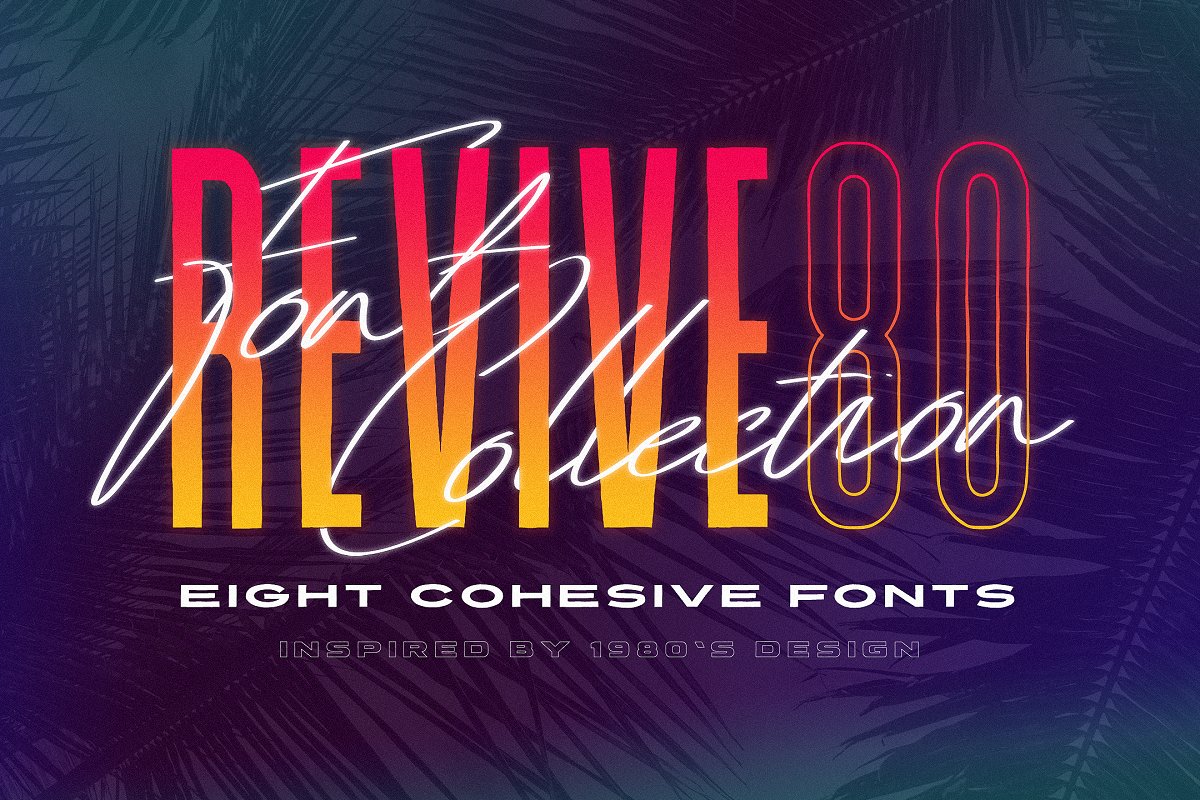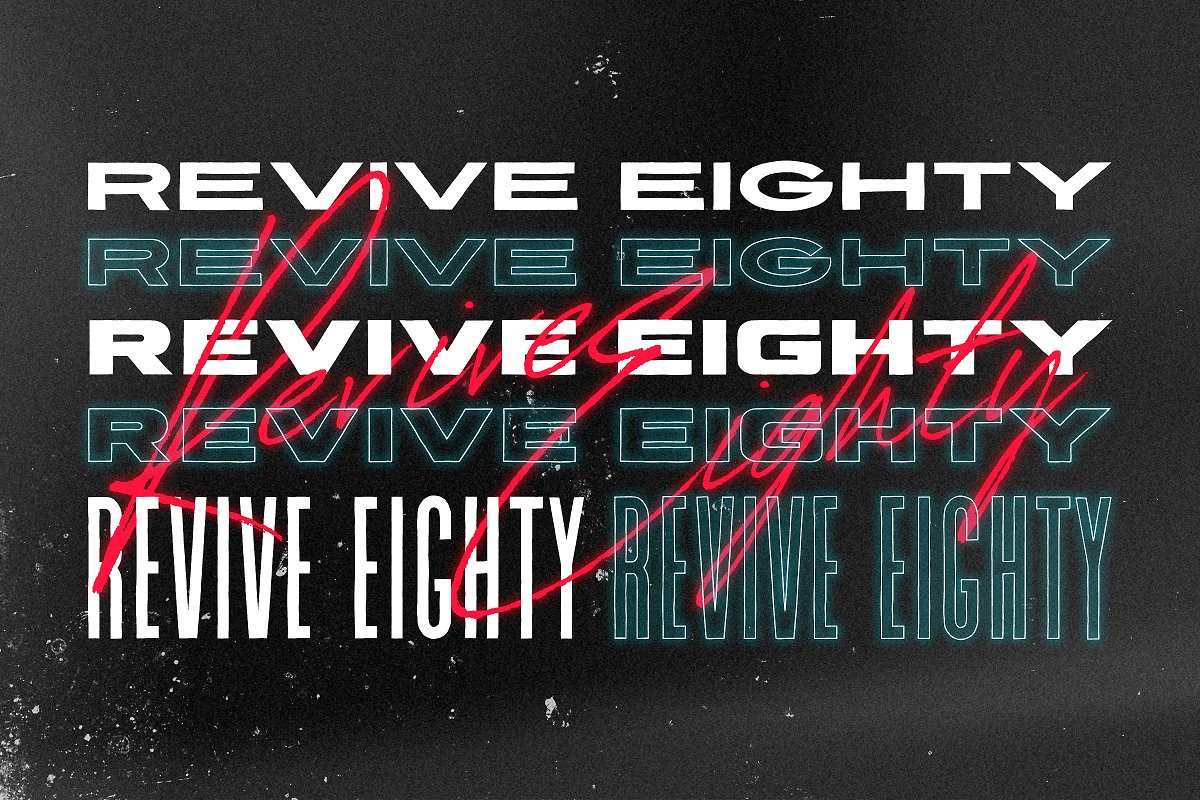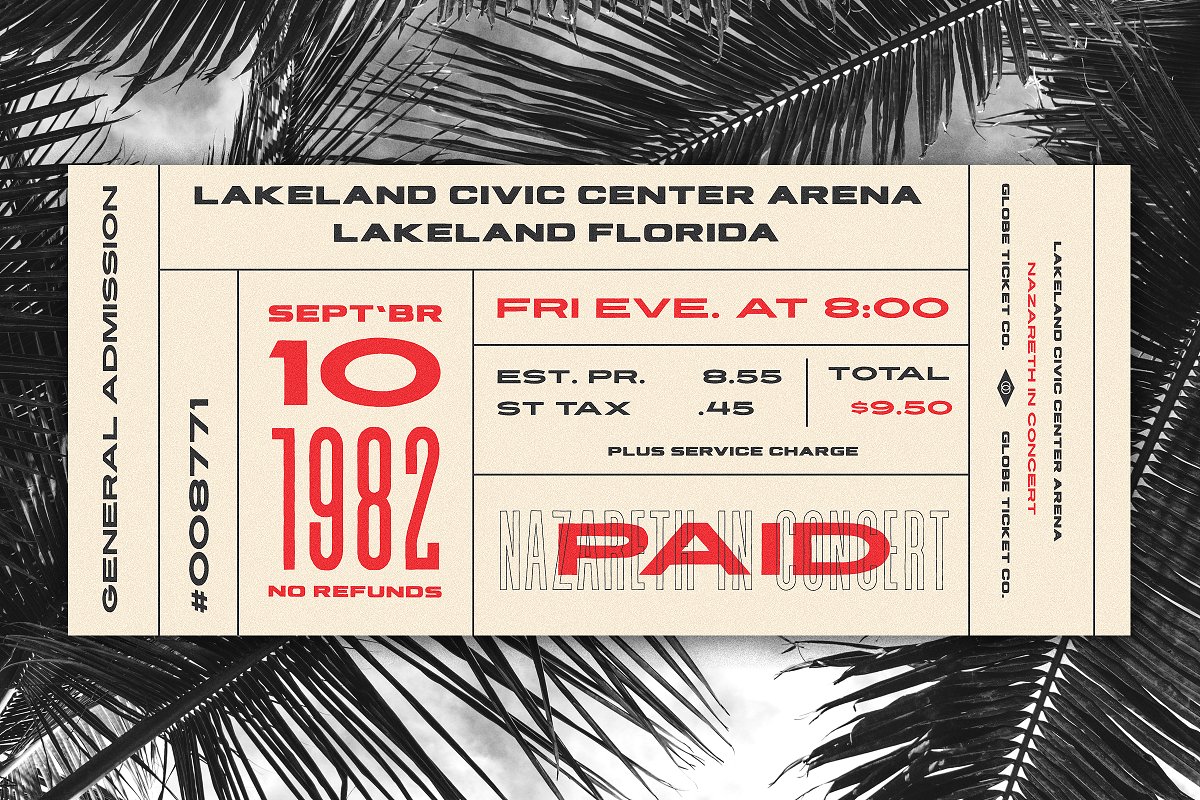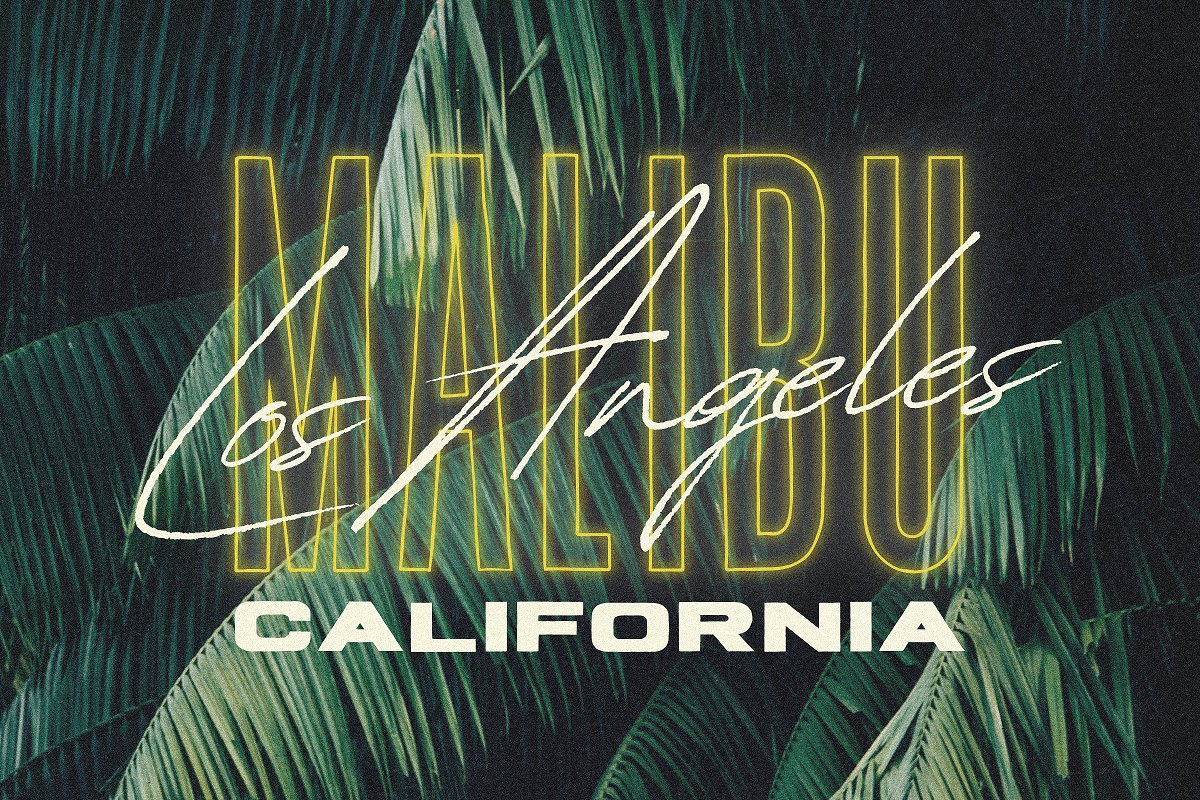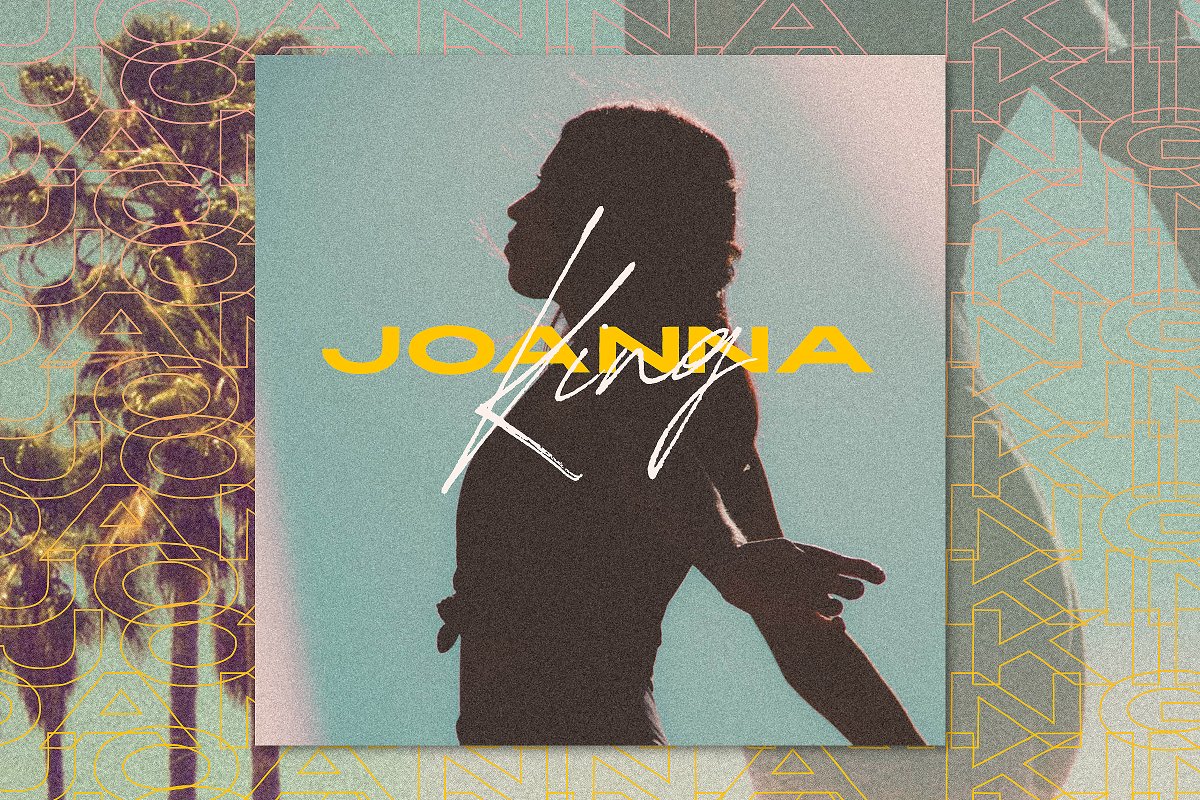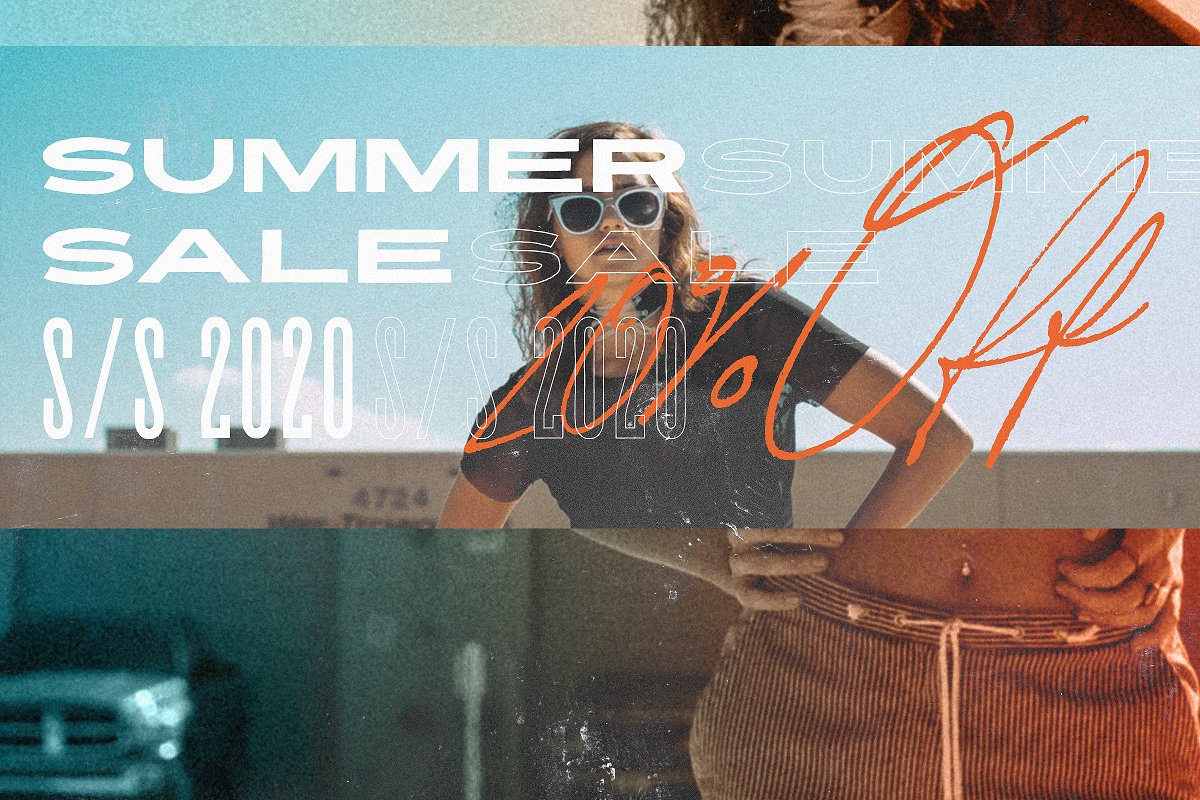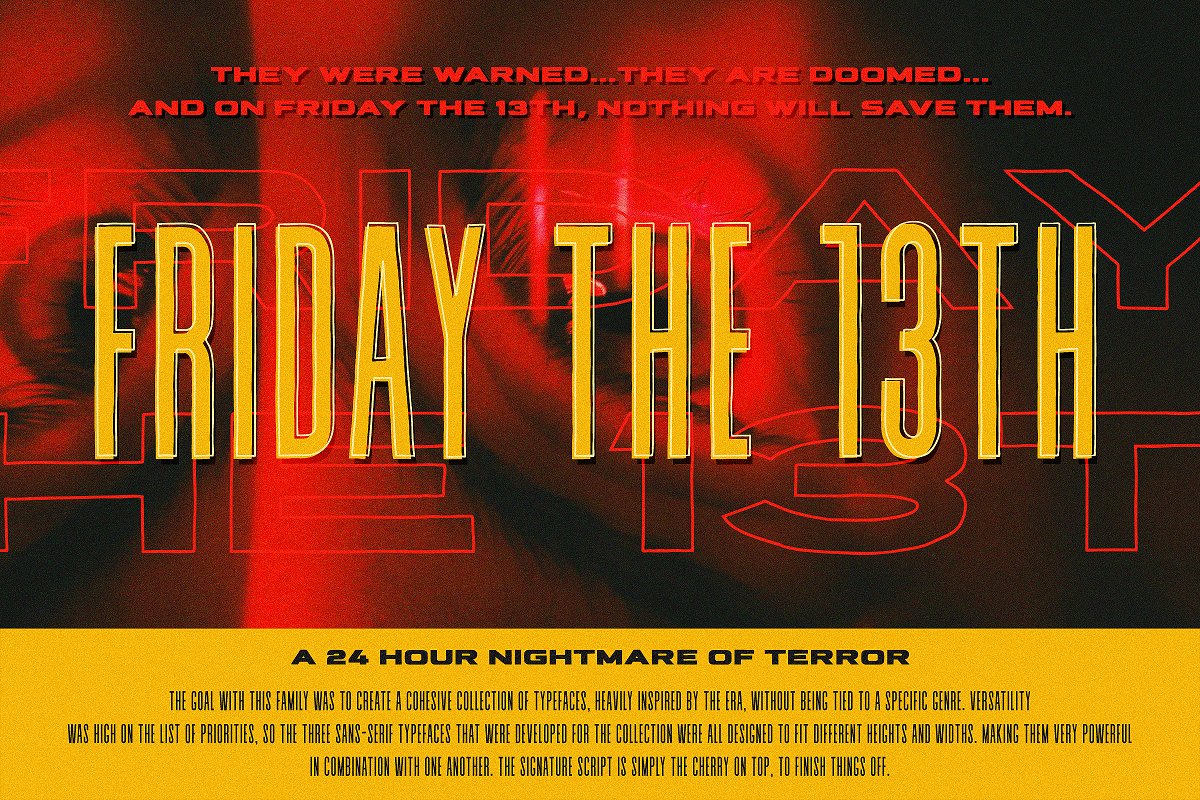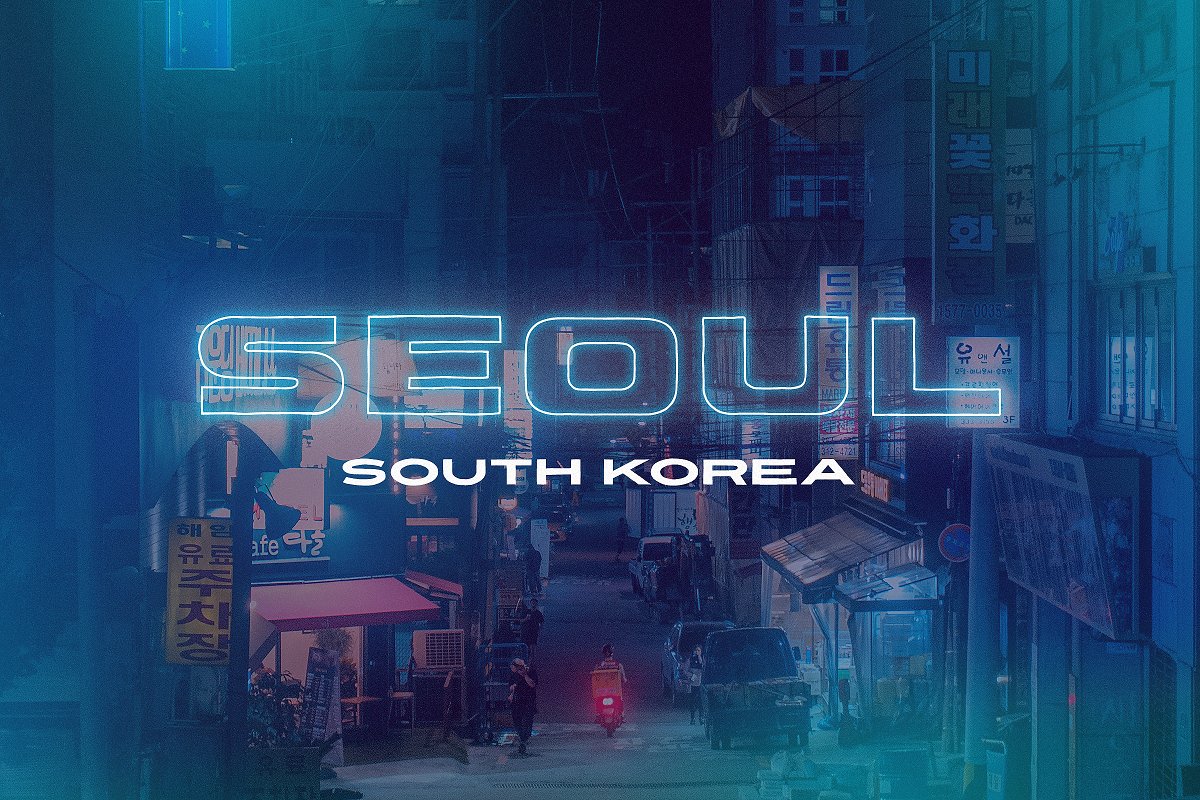
Proudly Introducing the Revive 80 Font Collection – A family of 8 super versatile typefaces heavily inspired by popular 1980s design; Ripe and ready to aid you in creating designs of the past, The 80s are making a very welcomed come back; Through our screens, on supermarket shelves, within fashion, and everything in between, And while we can apply a vintage sheen to our work within a few clicks, to truly hit it home, type choices are super important and often underestimated
The goal with this family was to create a cohesive collection of typefaces, heavily inspired by the era, without being tied to a specific genre, Versatility was high on the list of priorities, so the three sans-serif typefaces that were developed for the collection were all designed to fit different heights and widths
Making them very powerful in combination with one another, The signature script is simply the cherry on top, to finish things off, What’s Inside?Revive 80 Phatt + Outline: Visually strong and bold sans-serif, Revive 80 Wide + Outline: Super wide and eye-catching sans-serif
Revive 80 Tall + Outline: A very tall sans-serif, Perfect to fill those annoyingly tall spaces, Revive 80 Signature + Smooth: A modern take on the classic 80s signature script in rough and smooth styles, Multilingual glyphs throughout (Latin 1: À, Á, Â, Ã, Ä, Å, Æ, Ç, Ð, Ñ, Ø, Þ, ß, Œ, etc)Thank you so much for looking